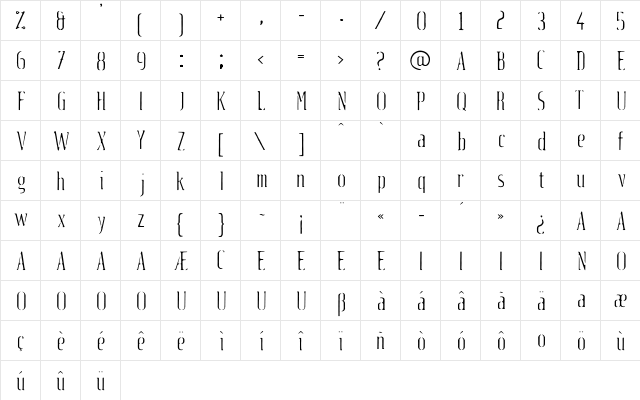
Fluid light
Design Context for Fluid Typeface
Fluid takes a measured approach to typography — its balanced proportions and neutral character make it a reliable workhorse for both digital and print work. Its slender proportions lend an understated elegance to any composition.
Pro Tip: Use Fluid in both headline and body roles to test its range before committing to a single application.